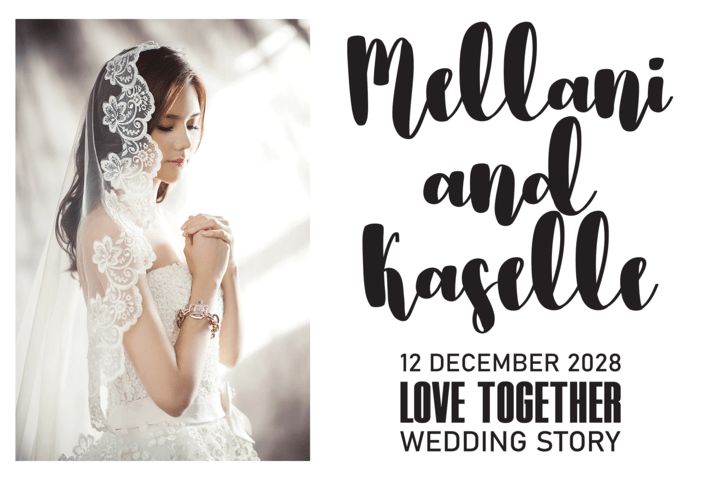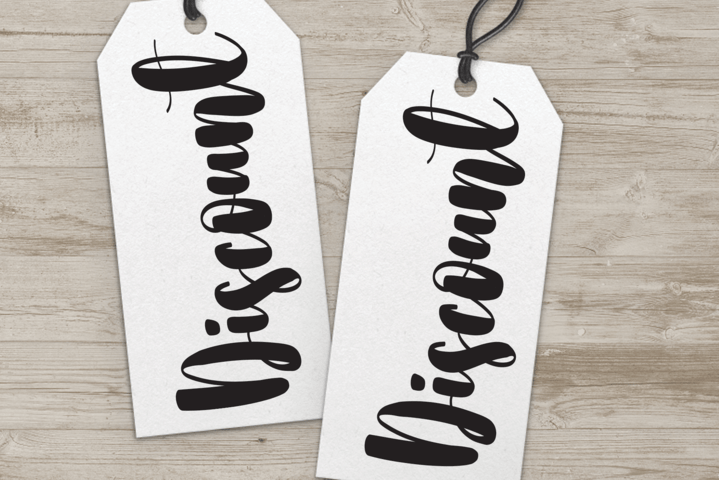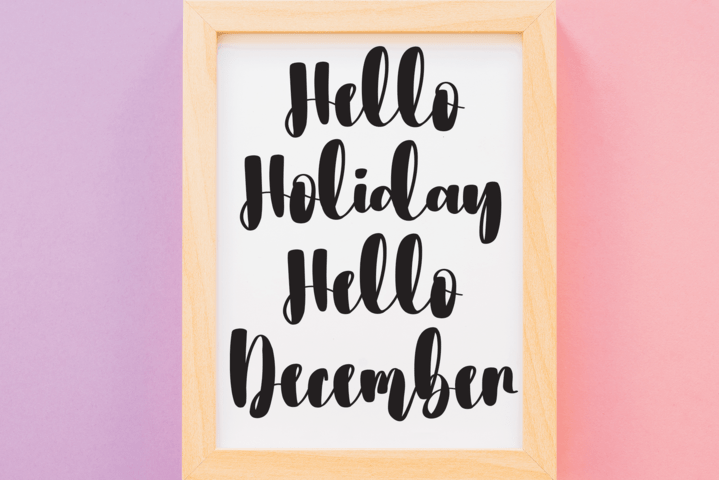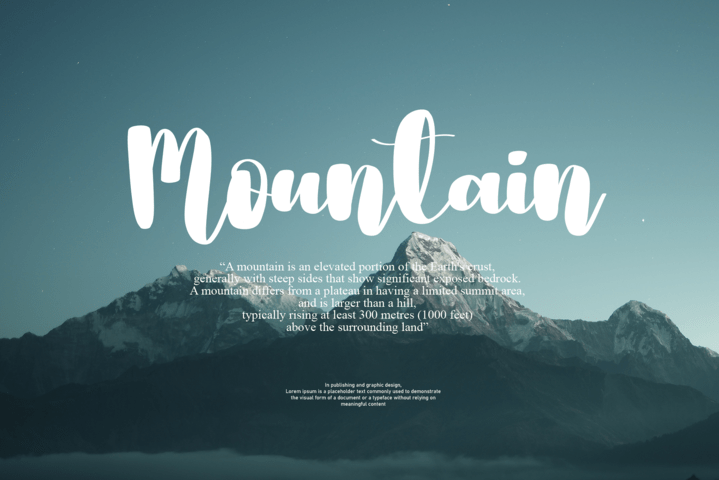
Christmas Script Font
It’s a fascinating handwritten font that looks bold and impressive! Its uniquely shaped characters will give each of your creative projects a high-quality and authentic look!